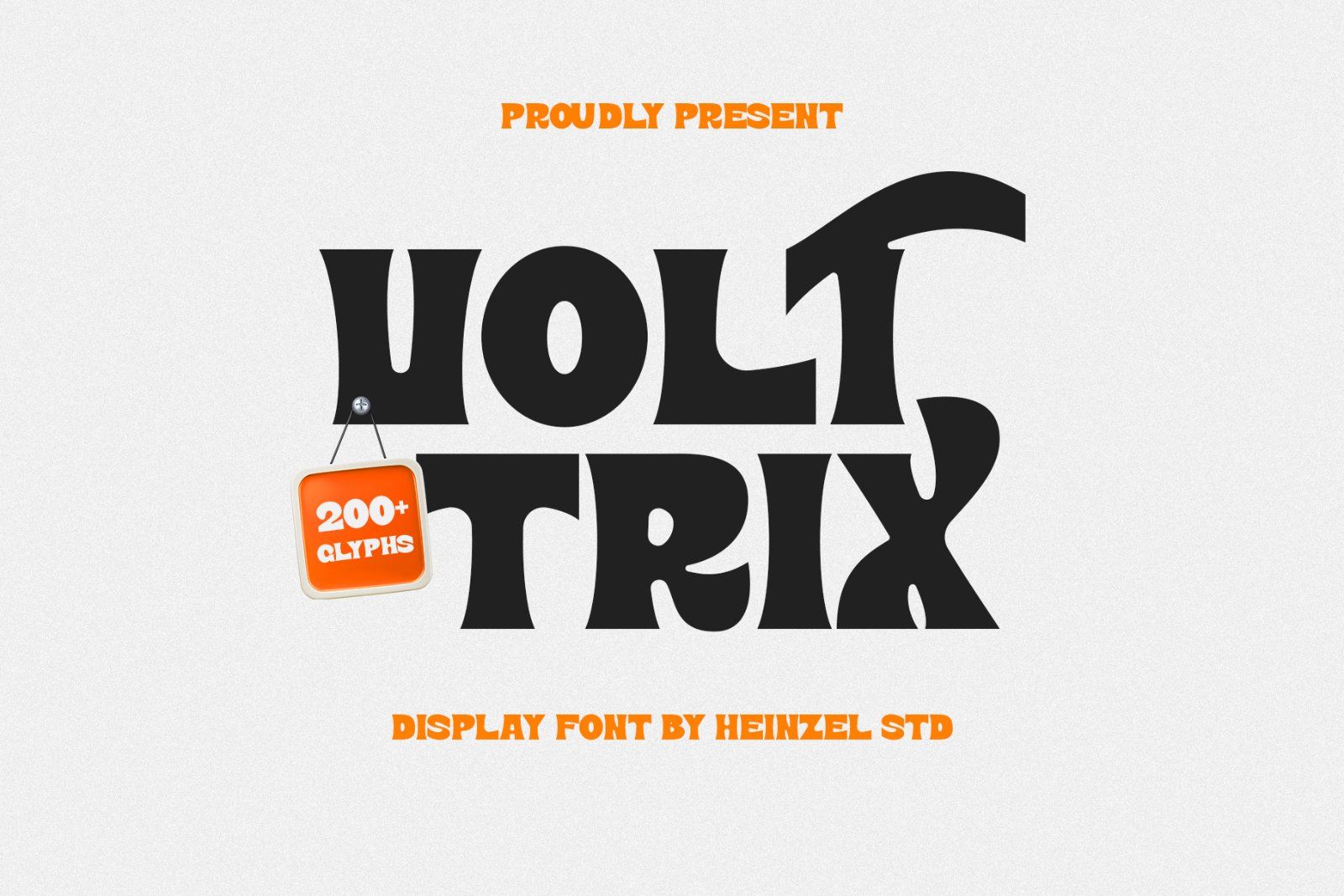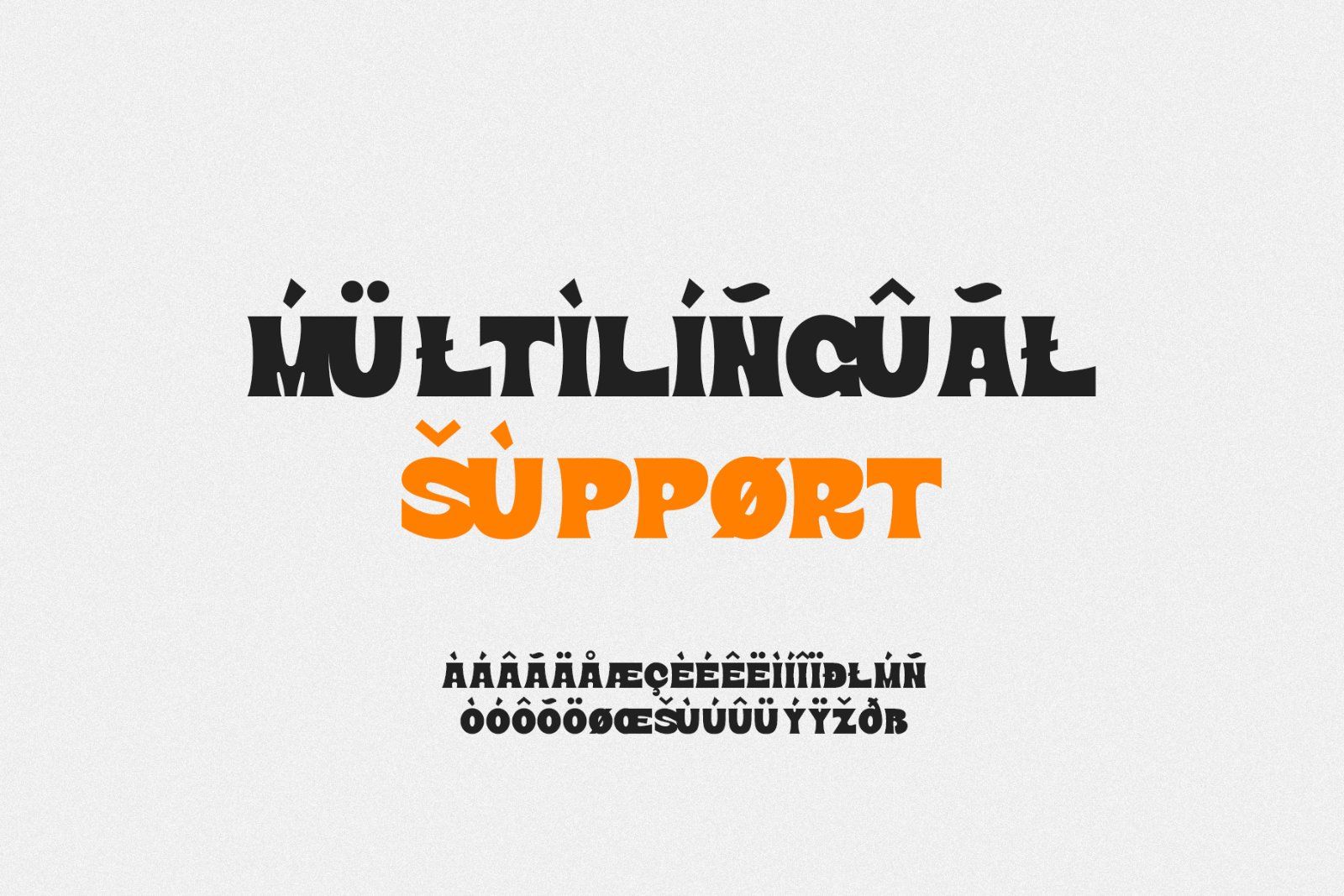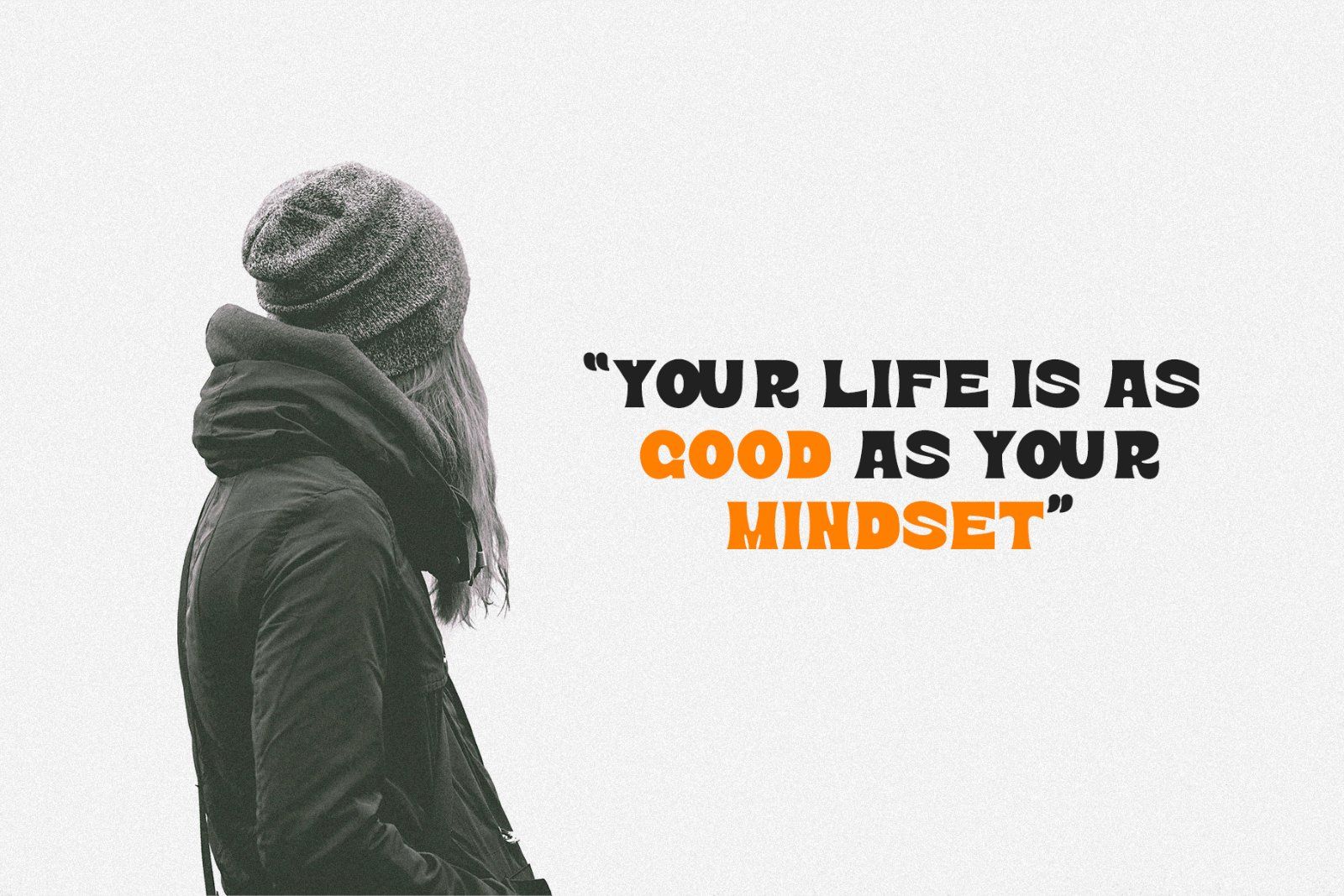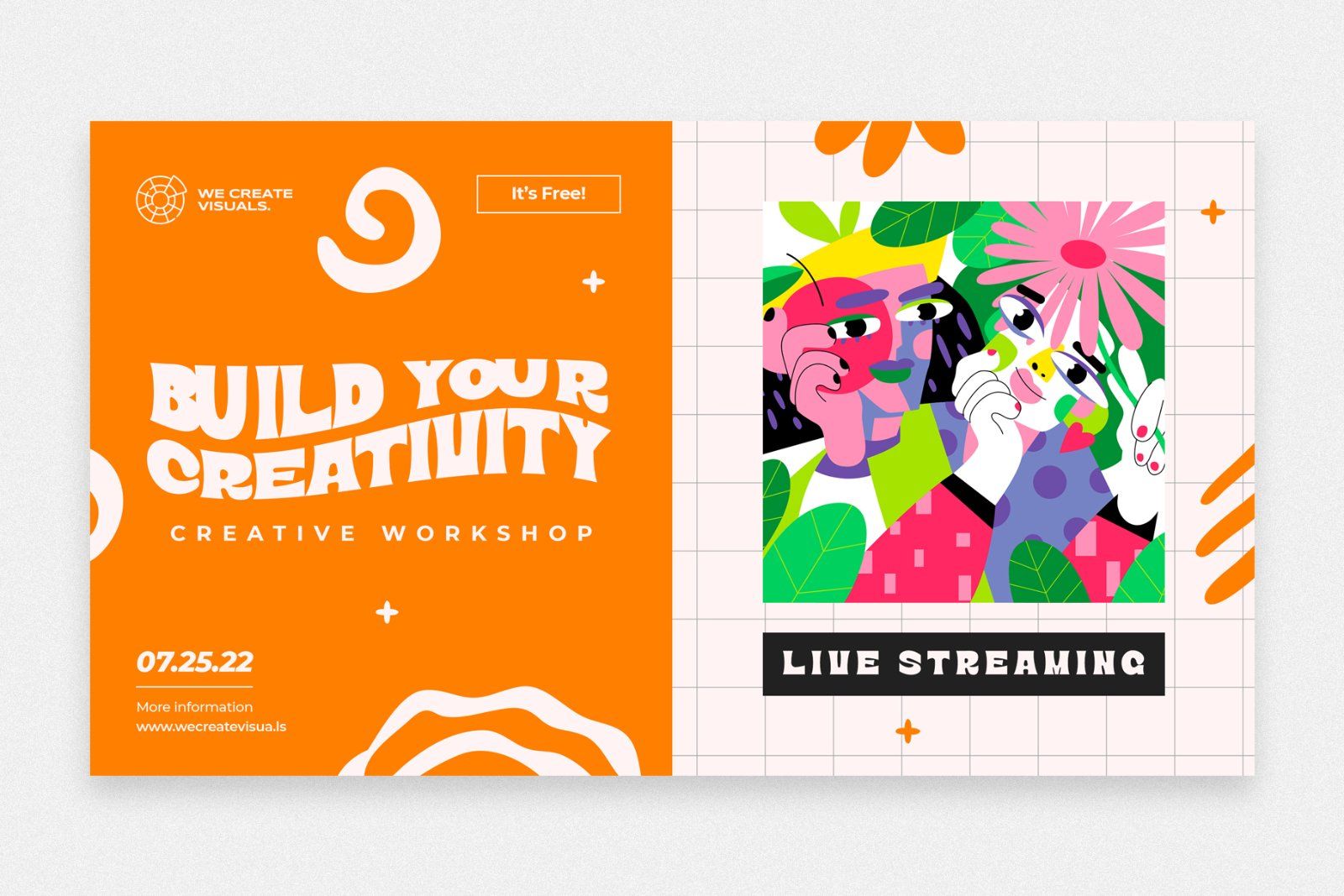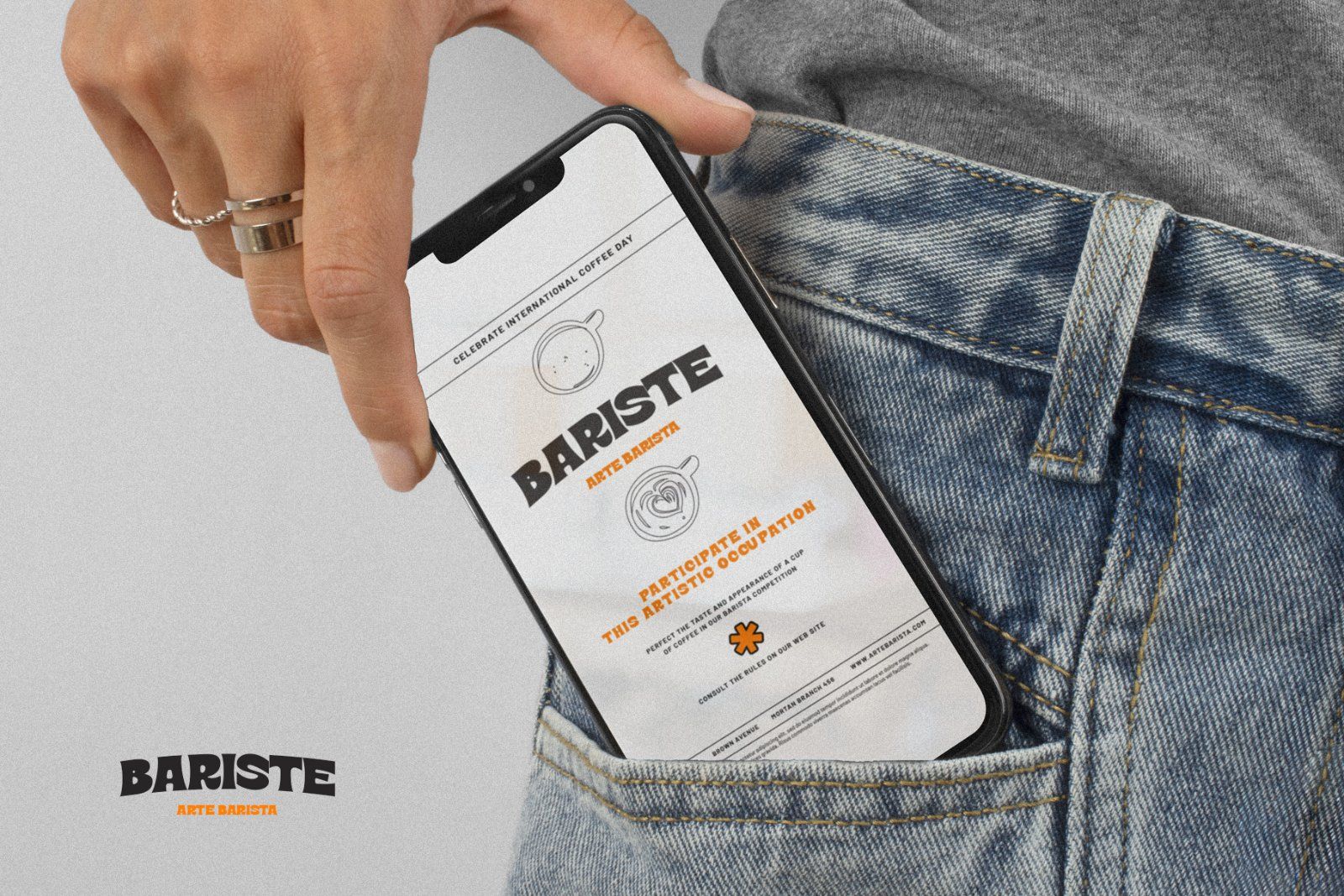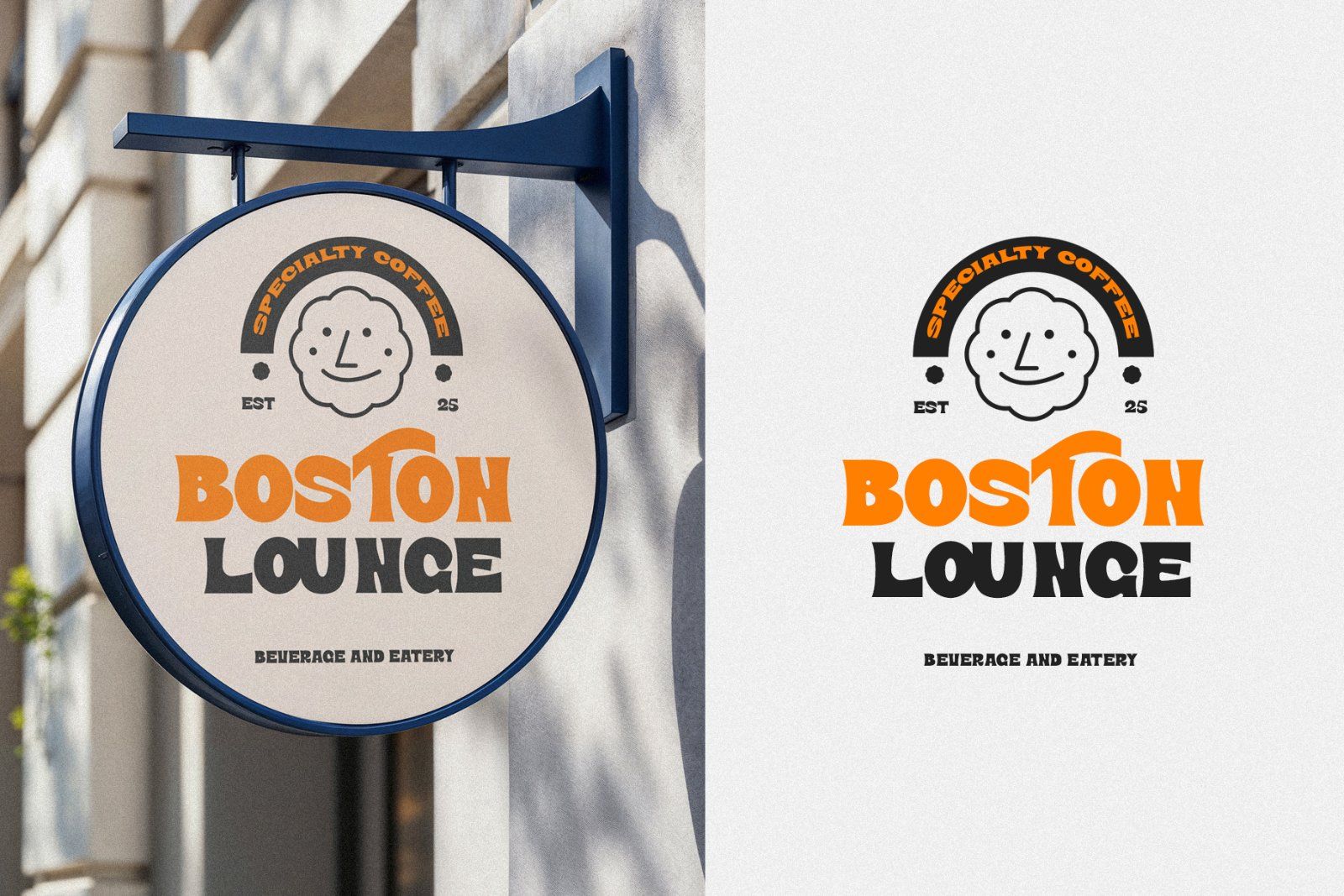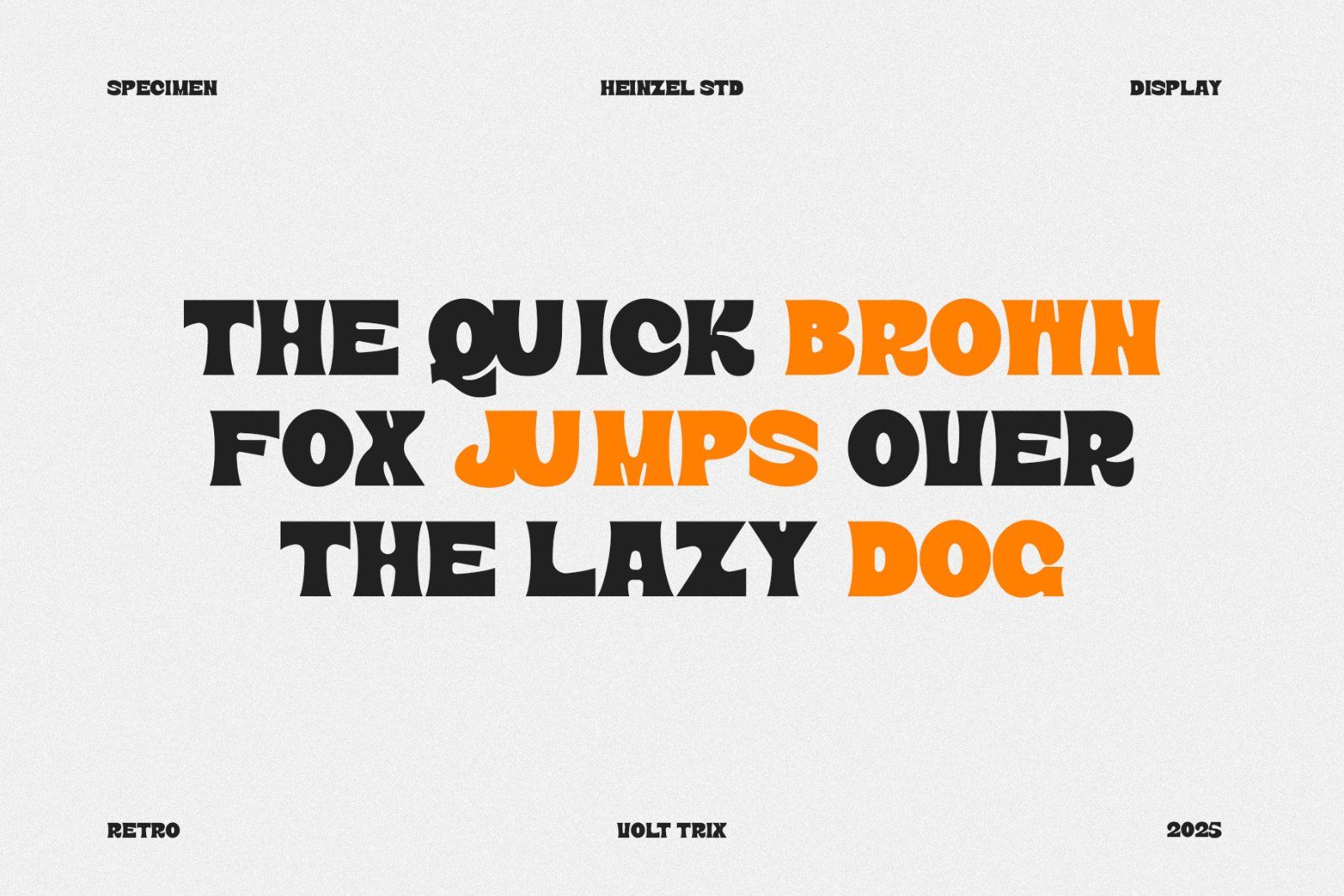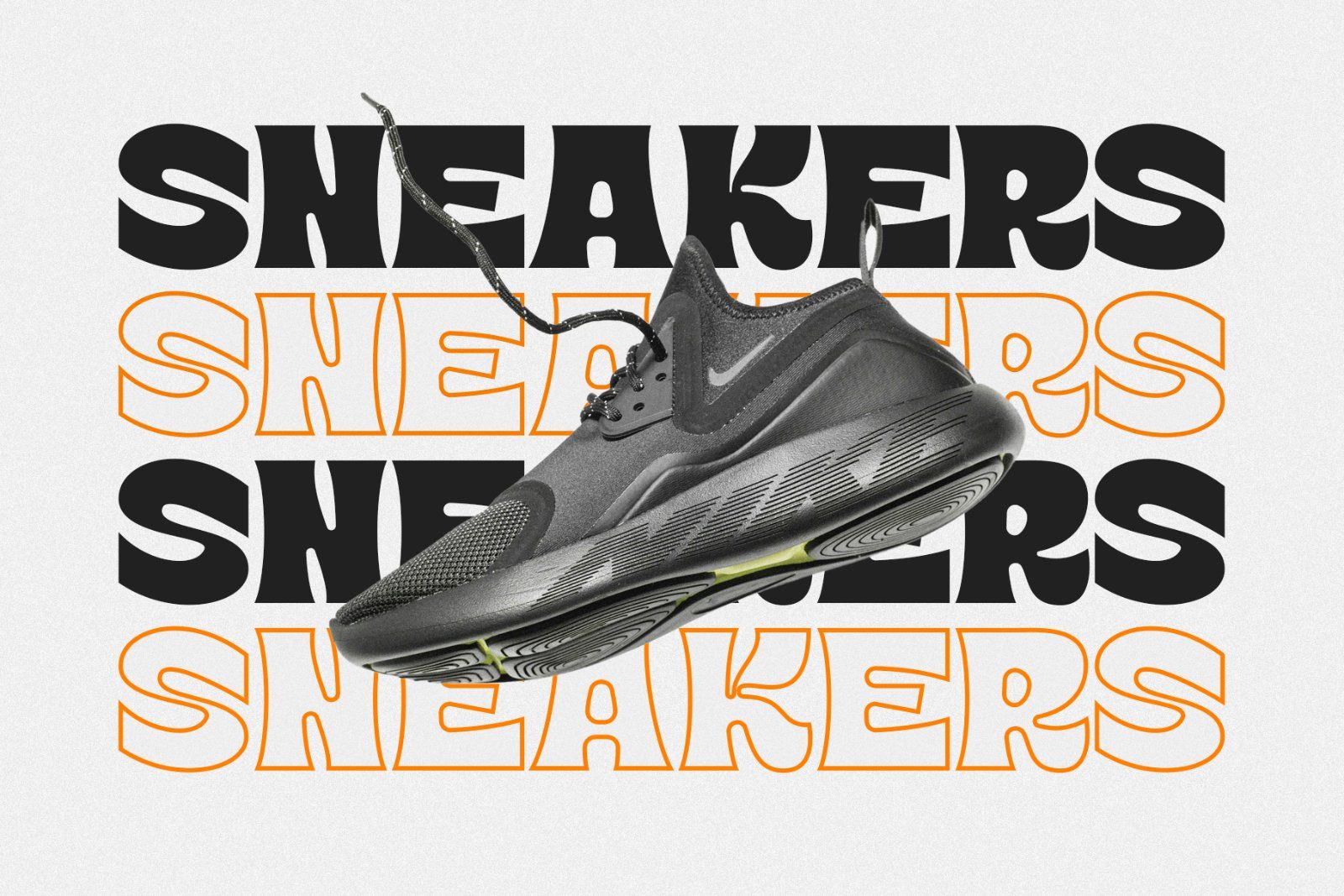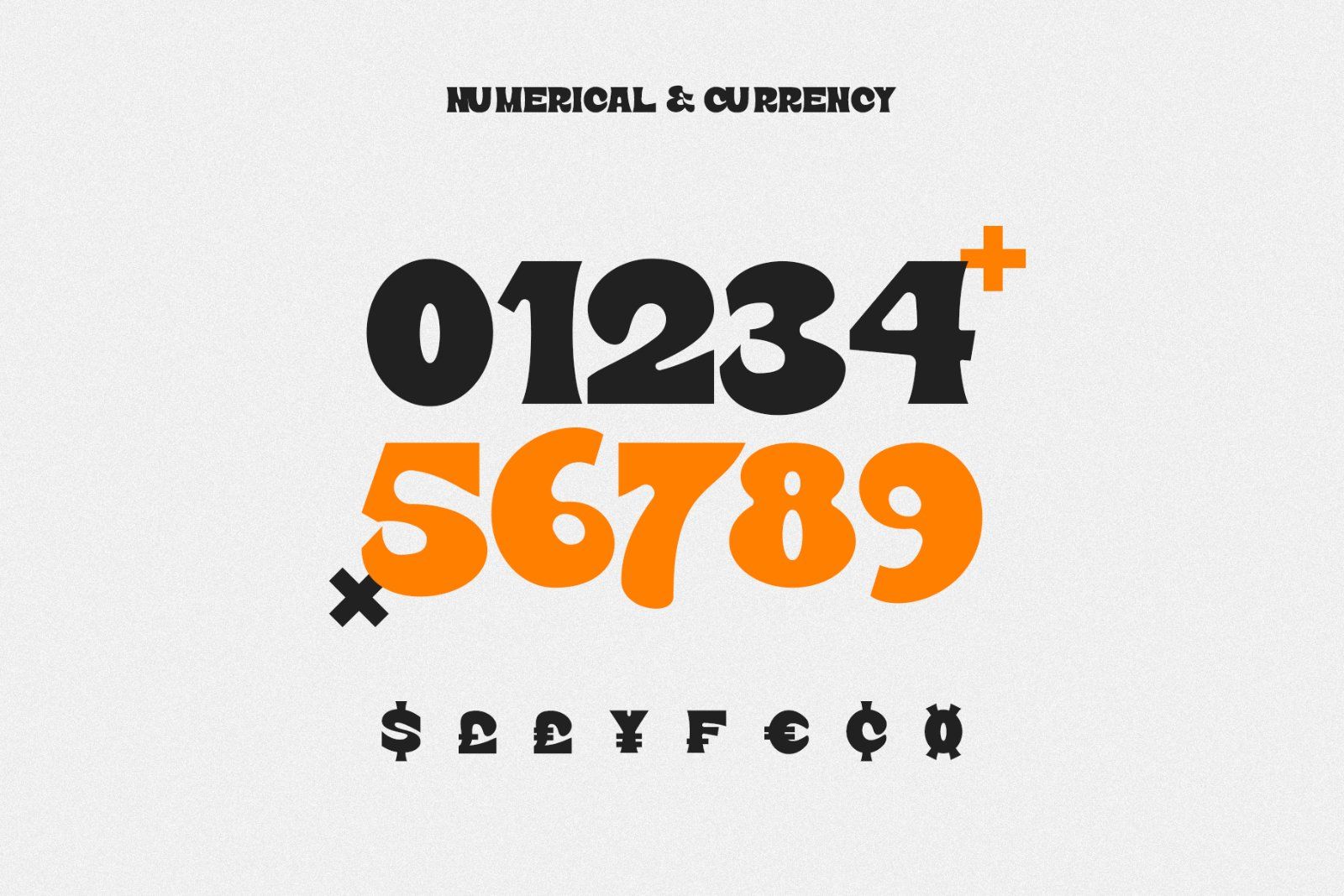
Volt Trix is a bold display font with strong retro influences and a uniquely playful style. Its thick curves, dynamic shapes, and expressive letterforms make it perfect for standout headers, logos, posters, merchandise, and creative branding. Designed to deliver maximum visual impact, Volt Trix includes over 200+ glyphs, giving you plenty of versatility for various design needs.
Whether you're crafting vintage-inspired graphics or modern bold layouts, Volt Trix ensures your typography captures attention instantly. Its fun character and distinctive silhouette make it a great choice for designers who want a memorable and expressive display font.